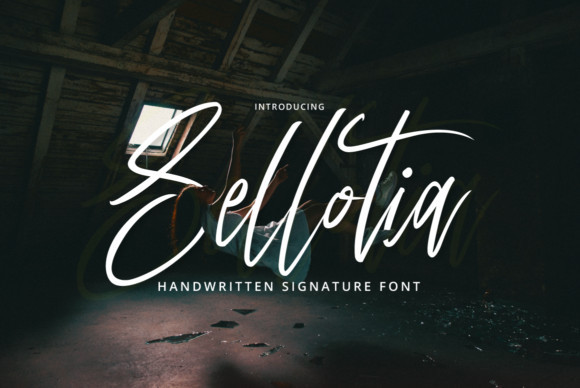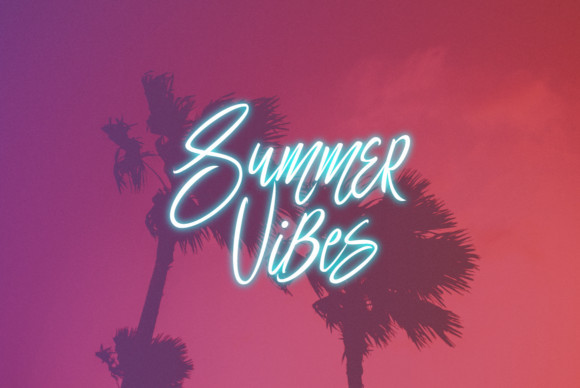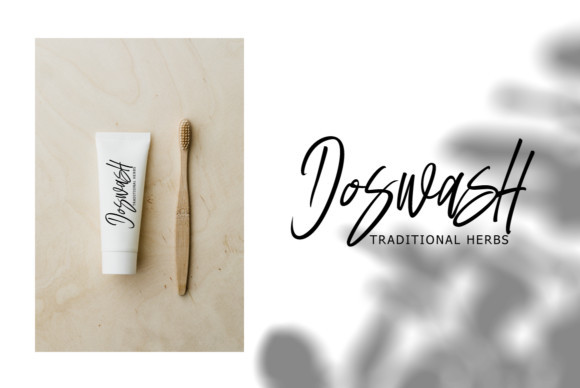
Sellotia Font
Sellotia is a modern and fresh script font. It features a calligraphy style, decorative characters and a dancing baseline! It will look amazing on greeting cards, branding materials, business cards, quotes, posters, and more!